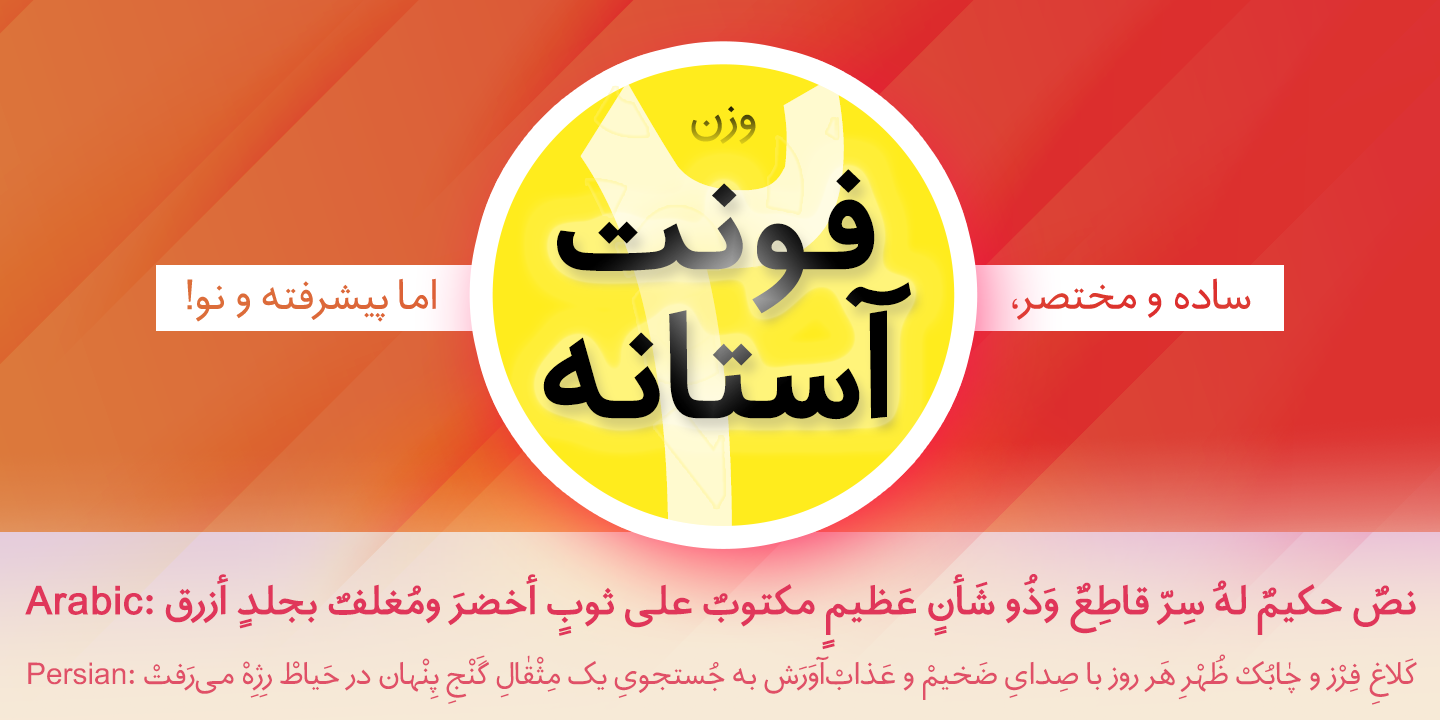
Astaneh Font is perfect for Persian cultural center branding, Middle Eastern restaurant menus, Islamic heritage museum displays, traditional Persian carpet showroom signage, Persian poetry publications, Middle Eastern cultural festival promotions, authentic Persian cuisine marketing, Islamic calligraphy workshop materials, Persian language learning resources, and distinguished Middle Eastern architectural firm presentations. Its elegant Persian character makes it ideal for projects requiring Middle Eastern authenticity and Persian cultural sophistication.
What makes Astaneh Font exciting is its graceful embodiment of Persian heritage and Middle Eastern elegance with flowing letterforms and cultural characteristics that capture the essence of Persian artistry and Islamic design excellence. The font features elegant proportions, Persian-inspired details, and cultural character construction that create authentic Middle Eastern atmosphere and Persian appeal. Its sophisticated personality brings cultural depth and artistic credibility to contemporary designs while maintaining the clarity essential for cultural communications and Persian presentations. The carefully crafted Persian elements ensure cultural accuracy while preserving the distinctive character that embodies the essence of Persian tradition and Middle Eastern excellence.
Astaneh Font comes in multiple cultural variations including Light, Regular, Medium, Bold, and Traditional styles. Each family member maintains the distinctive Persian character while offering comprehensive flexibility for Middle Eastern typography and Persian cultural brand system development. The complete font family includes Persian punctuation marks, cultural symbols, and traditional decorative elements that provide essential tools for authentic Persian communication excellence and cultural presentation quality.
Whether you're developing Persian cultural brands, Middle Eastern organizations, or Islamic heritage projects, Astaneh Font Free Download provides the cultural authenticity needed to communicate with Persian communities and Middle Eastern culture enthusiasts who appreciate Persian tradition and Islamic sophistication. The font's elegant appeal resonates with Persian scholars, cultural professionals, and Middle Eastern heritage educators seeking authentic Persian credibility and cultural sophistication. Its comprehensive character set includes Persian symbols and cultural marks, making it perfect for creating complete Persian brand systems and memorable Middle Eastern storytelling across diverse cultural applications and heritage-focused design projects that celebrate Persian culture and Islamic excellence.